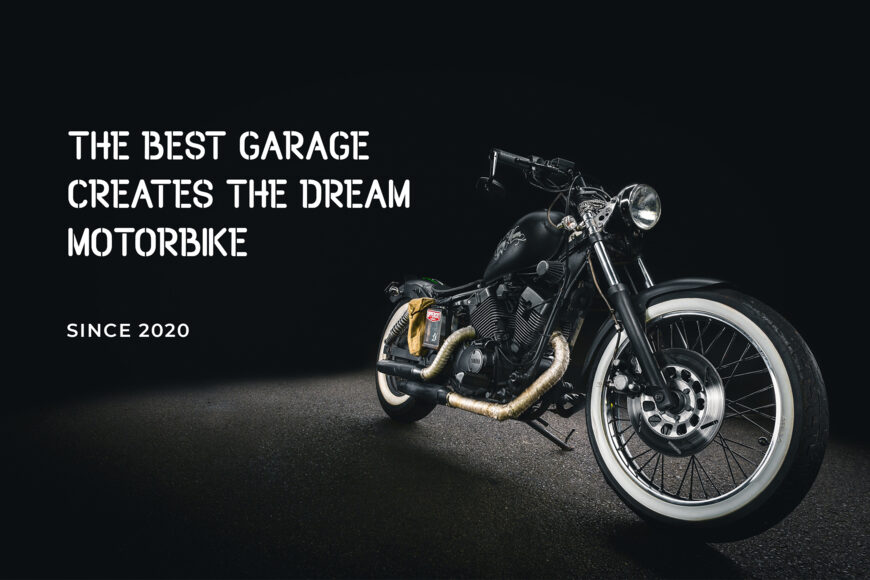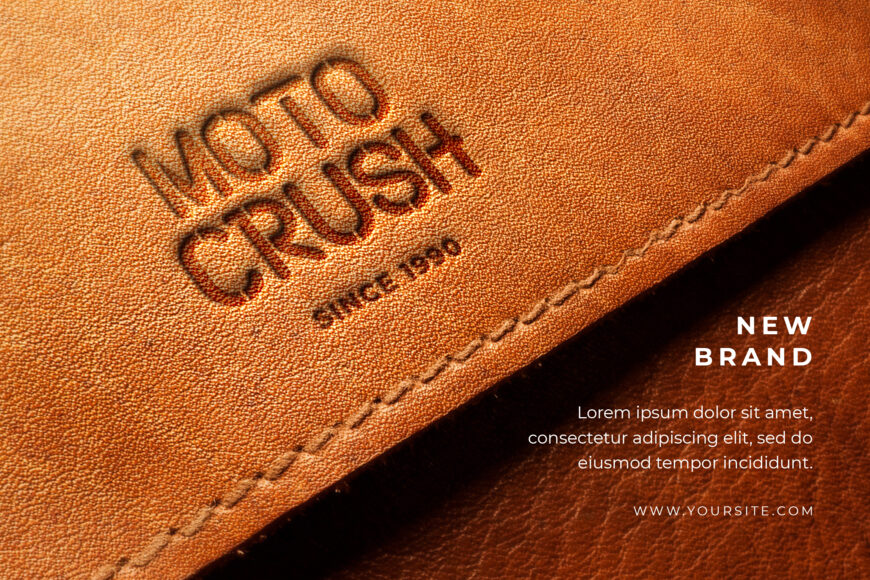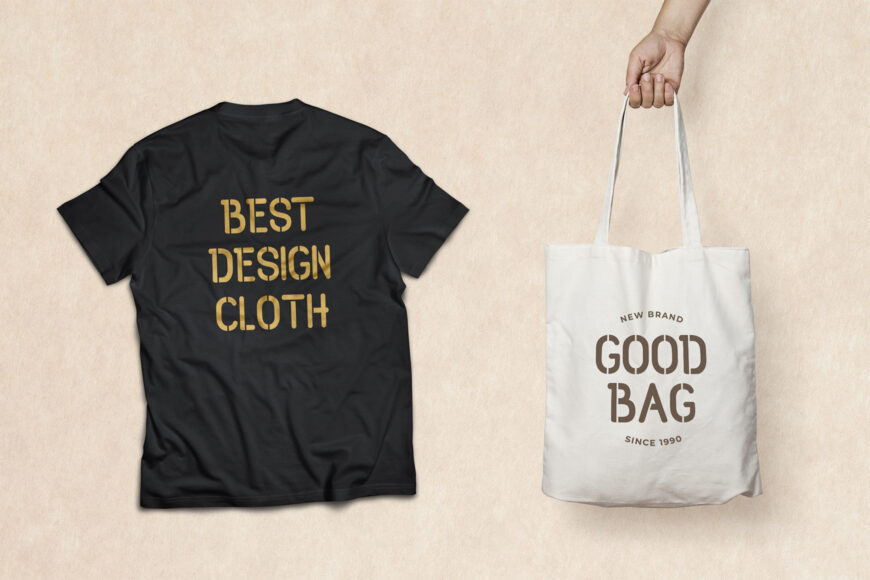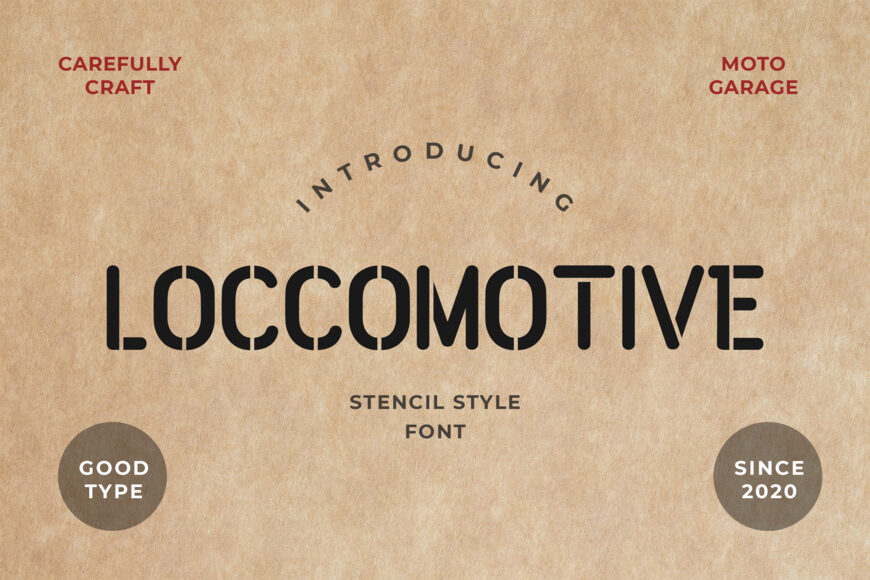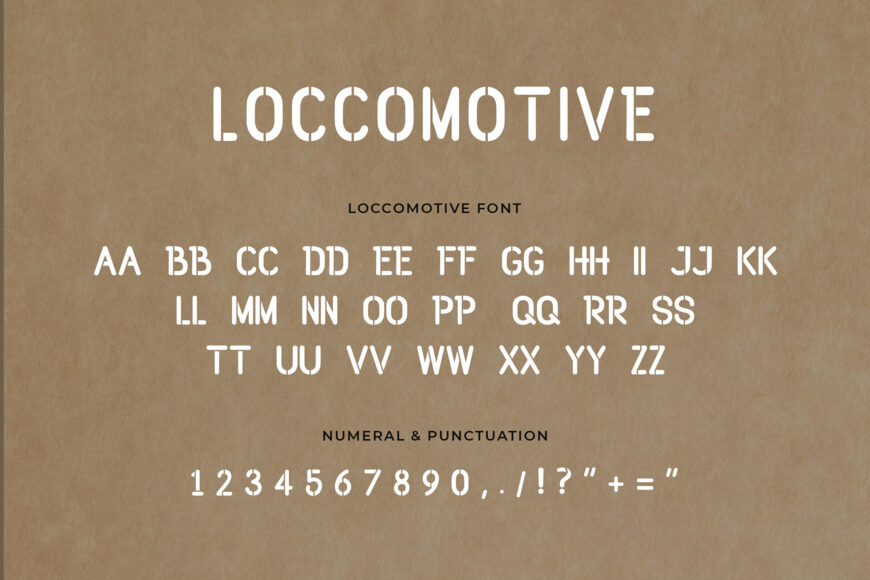
Loccomotive Font
Loccomotive is a fun, vintage and incredibly unique display font. No matter the topic, this font will be an asset to your fonts’ library, as it has the potential to elevate any creation.